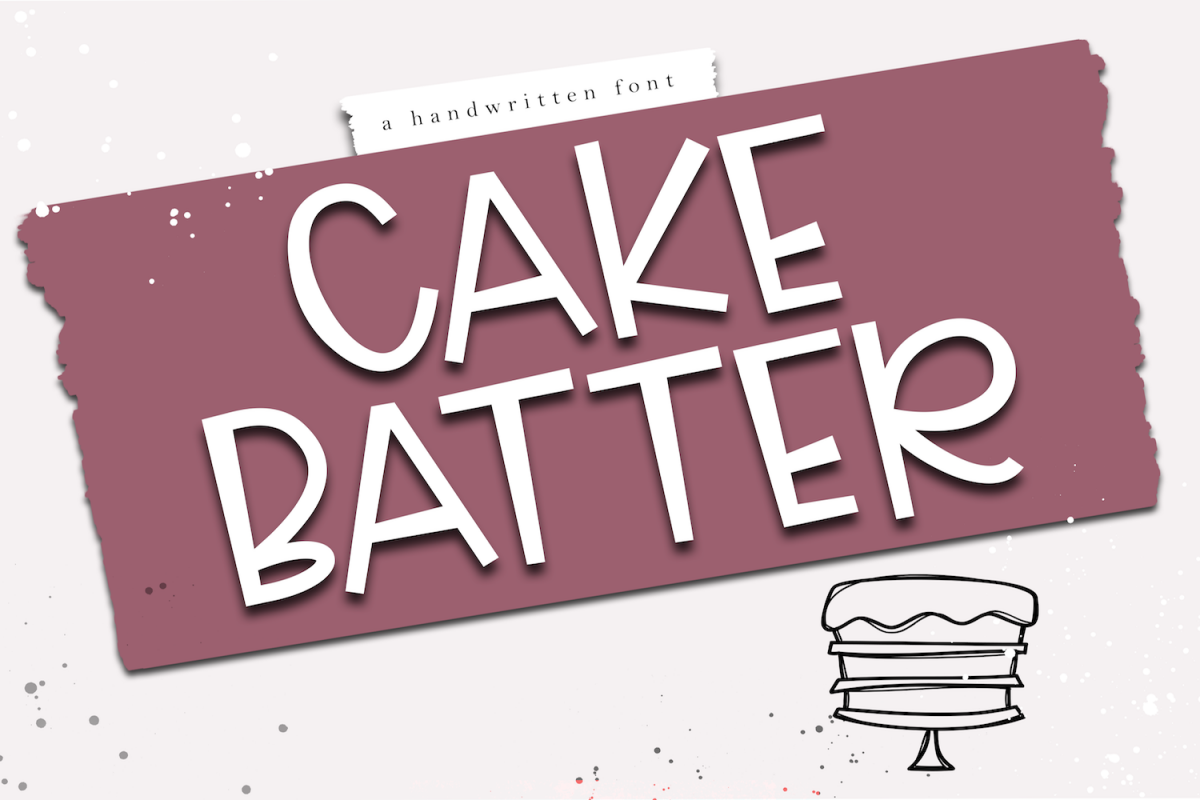
Cake Batter - A Handwritten Font
CakeBatter
Cake Batter is a bold and fun handwritten font.
This font is perfect for quotes, headings, blogs, logos, invitations and more!
This font does include accent characters.